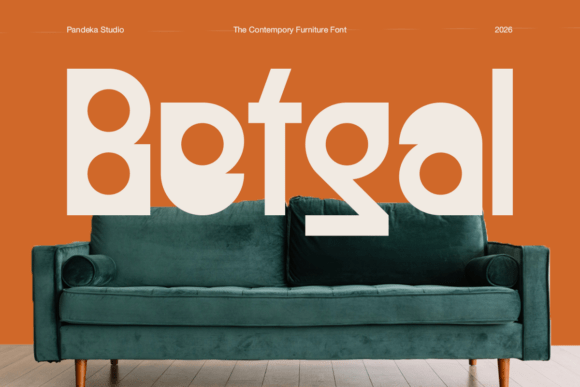
The Designer’s Delight: Unveiling the Betgal Font
I’ll never forget the time I was working on a furniture branding project, and my client asked me to create a logo that exuded modernity and sophistication. I scoured the internet for the perfect font, but nothing seemed to fit the bill. That was until I stumbled upon the Betgal font. ✨ Its clean lines, smooth curves, and balanced shapes instantly caught my attention, and I knew I had found the perfect match.
As a designer, I’m always on the lookout for fonts that can elevate my work. Here’s what I love about Betgal:
- ✅ Clean and modern aesthetic: Betgal’s sleek design makes it perfect for contemporary furniture branding and lifestyle-focused designs.
- ✅ Smooth curves and balanced shapes: These features create a warm yet professional look that’s hard to achieve with other fonts.
- ✅ Versatile: Betgal works beautifully for interior design, home decor brands, lifestyle visuals, modern logos, editorial layouts, and elegant promotional materials.
While Betgal is an excellent font, it’s not without its quirks:
- ⚠️ Limited availability of certain glyphs: Some users have reported that certain glyphs or special characters are not available in the standard font package. 🤔
- ⚠️ Not ideal for body text: Betgal is best used for headlines, titles, and short paragraphs. For longer texts, you might want to pair it with a more readable font.
The Story Behind Betgal: Designer Inspiration
Betgal was designed with the modern furniture brand in mind. Its creator, a renowned type designer, wanted to craft a font that would capture the essence of contemporary design: clean lines, smooth curves, and a touch of sophistication. The result is a font that’s both stylish and versatile, perfect for a wide range of design applications.
| Font Name | Betgal Font |
| Author | pandekastudio |
| What is Betgal best used for? | Betgal is ideal for furniture branding, interior design, home decor brands, lifestyle visuals, modern logos, editorial layouts, and elegant promotional materials. |
| Is Betgal suitable for body text? | No, Betgal is best used for headlines, titles, and short paragraphs. For longer texts, you might want to pair it with a more readable font. |
| Does Betgal support OpenType features? | Yes, Betgal supports OpenType features, including stylistic alternates, glyphs, and ligatures. |